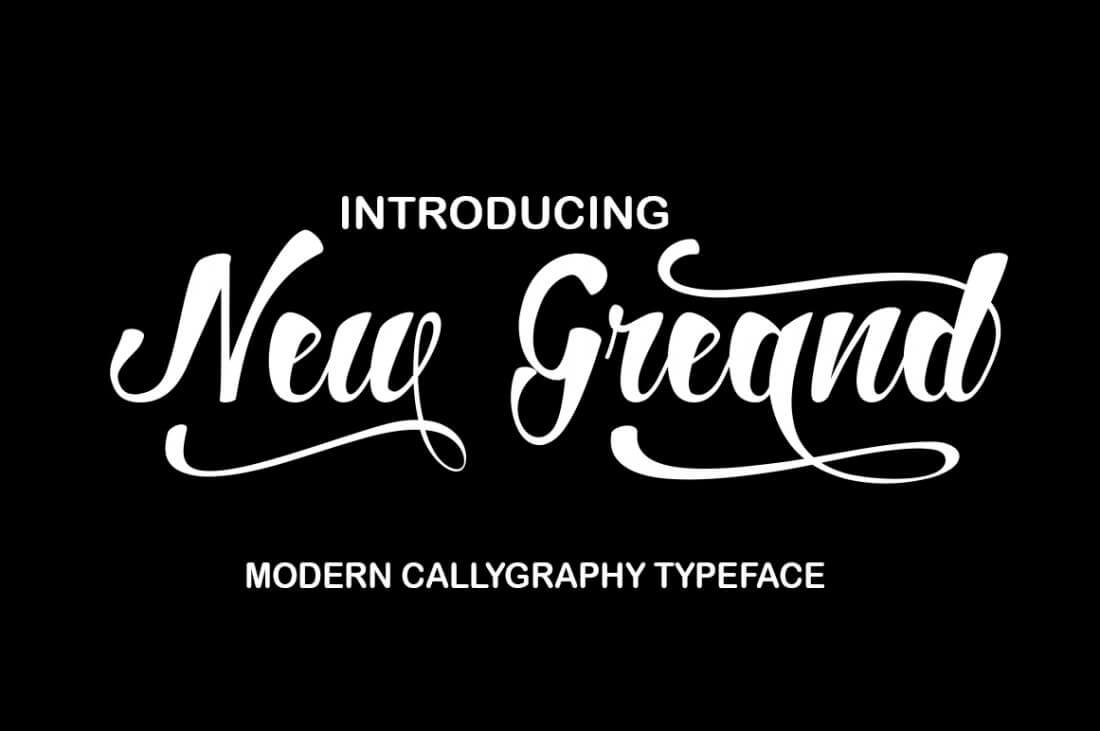
Big Bundle of Beautiful Fonts
This pack has in excess of 40 fonts. Includes some best-selling fonts. New lettering such as Melinda, Hatachi, Maulydia, Rembulan, Amanda, and Cindy, to name a few. Comprises hundreds of glyphs, including alternatives, ligatures, swashes, contextual alternatives, and international language support. These can be accessed by using OpenType smart programs like Adobe Illustrator, Adobe InDesign, CorelDraw X6-X7, and Microsoft Word.
This pack has in excess of 40 fonts. Includes some best-selling fonts. New lettering such as Melinda, Hatachi, Maulydia, Rembulan, Amanda, and Cindy to name a few. Comprises hundreds of glyphs, including alternatives, ligatures, swashes, contextual alternatives, and international language support. These can be accessed by using OpenType smart programs like Adobe Illustrator, Adobe InDesign, CorelDraw X6-X7, and Microsoft Word.
Highlights:
- Loads of OpenType features including swashes, ligatures, alternative styles, numerators, superscripts, subscripts, and more;
- Multilanguage support;